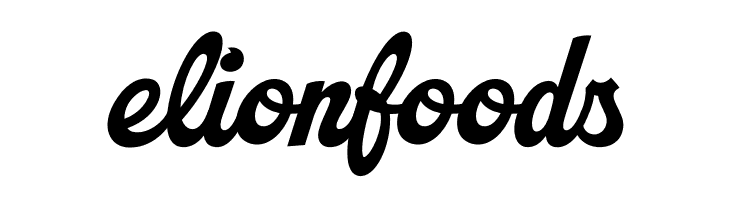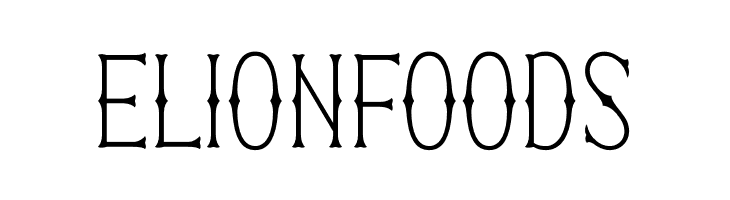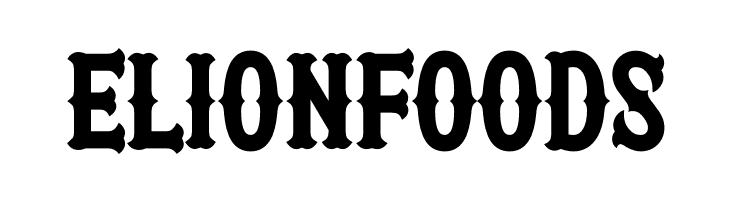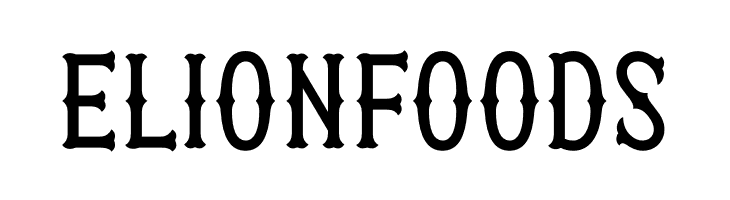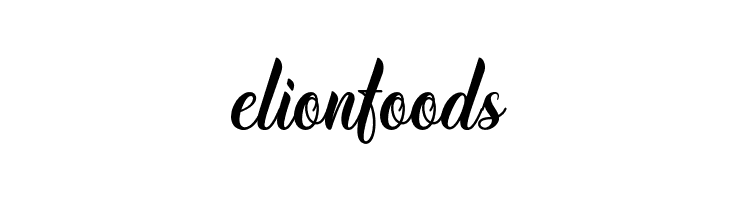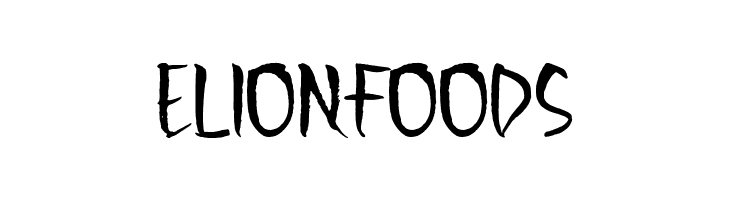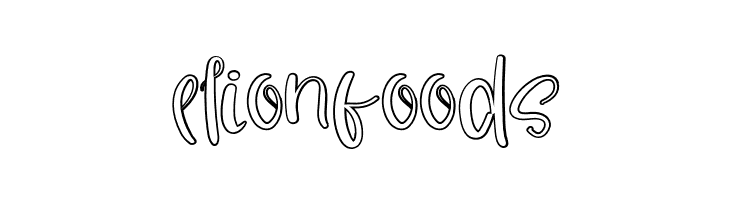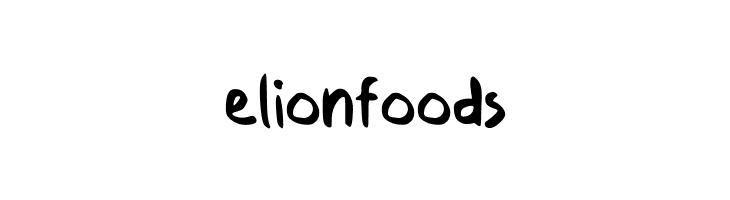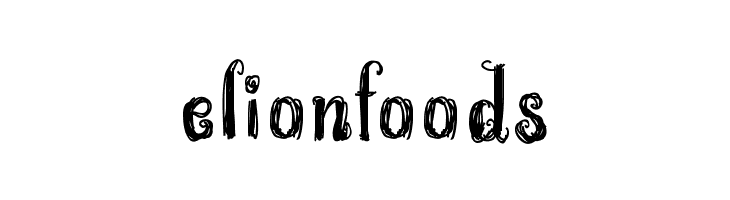
A bold, elegant cursive font with high contrast and fluid strokes.
A thin, artistic font with elongated strokes and sharp serifs, offering a whimsical and gothic feel.
A bold, dramatic font with thick strokes and sharp serifs, ideal for impactful designs.
A bold, vintage-style font with handcrafted, irregular edges.
An elegant and whimsical script font with ornate, flowing letterforms.
A bold, hand-drawn font with a rough, textured brush stroke appearance.
A playful, handwritten font with rounded, flowing lines and a whimsical style.
A playful handwritten font with smooth curves and a casual style.
A bold, angular font with a rugged, distressed texture.
A whimsical, decorative font with vine-like embellishments and a hand-drawn appearance.